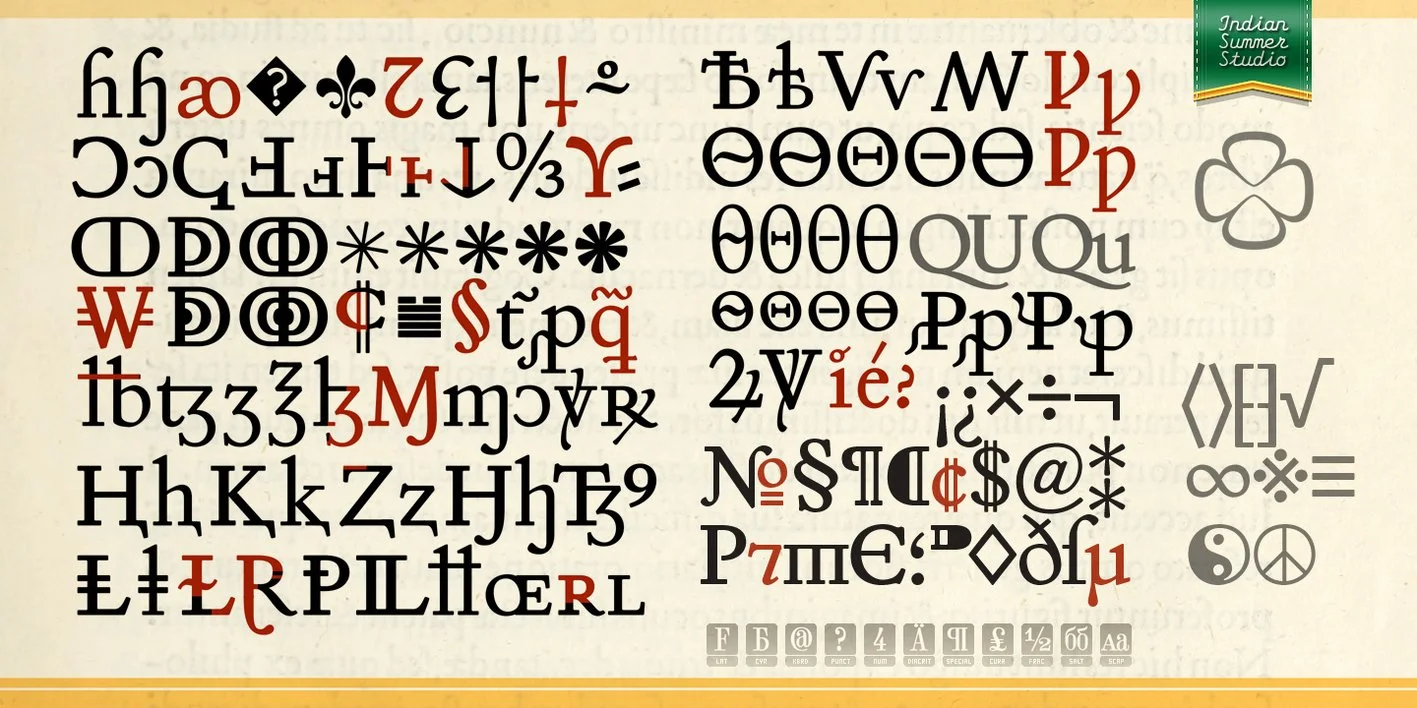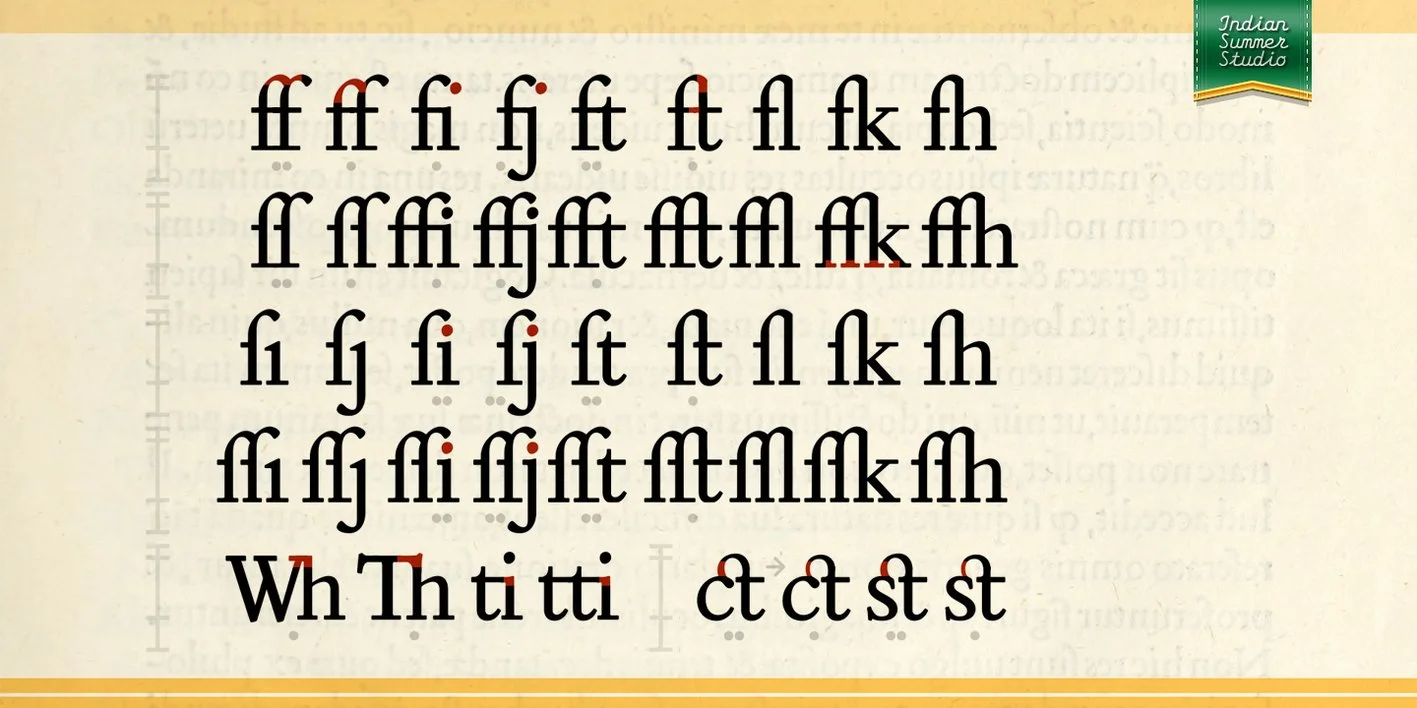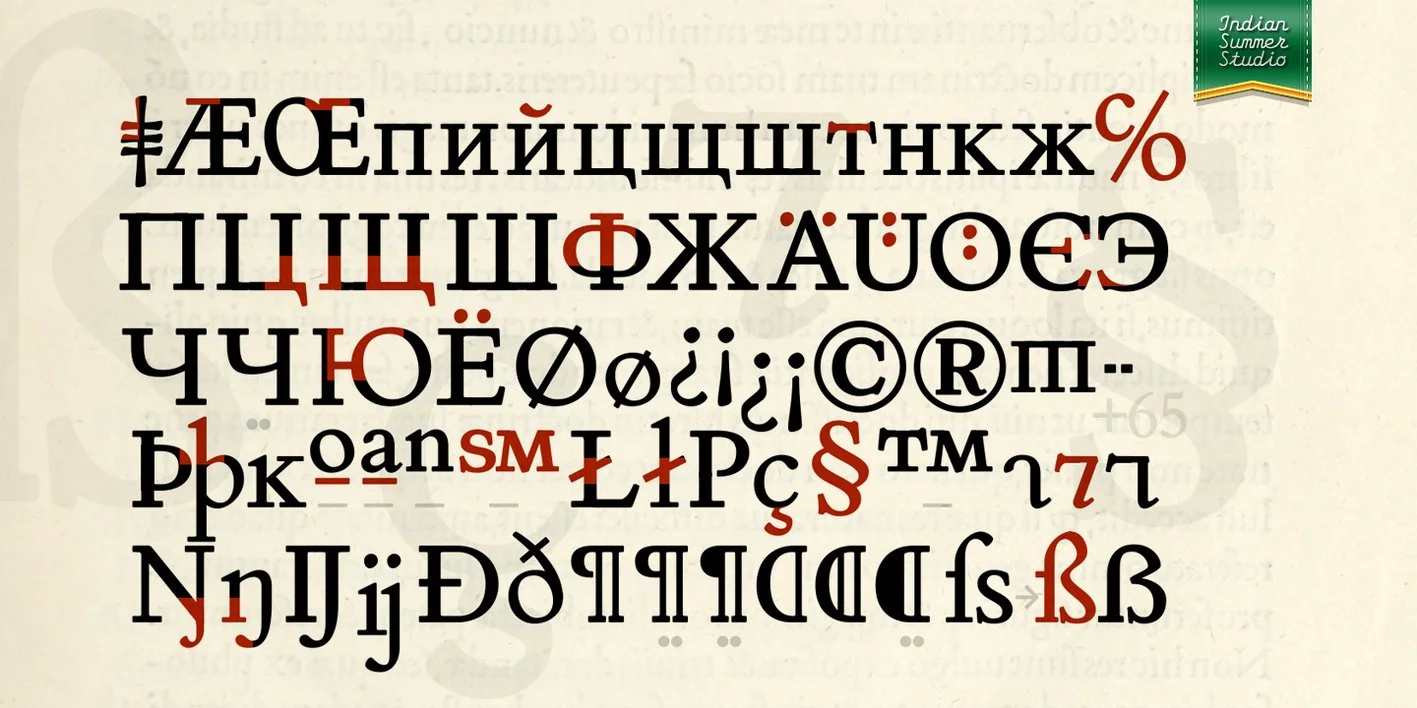
Aldo New Roman Font
There is a particular satisfaction in finding a typeface that delivers optical balance across all weights without compromise. Aldo New Roman consistently provides it. The typeface brings a versatile sensibility to a broad range of creative disciplines, with the kind of restraint that lets content lead that holds up whether the work is print-first or screen-first.
In practice, Aldo New Roman proves particularly effective for signage systems, social media graphics, logo design, editorial layouts, advertising campaigns. Designers reaching for it find that the type decisions feel resolved rather than laboured — a useful quality when client timelines are tight.
Spacing and kerning pairs have been individually reviewed for the most common letter combinations in English and major European languages. The result is even type colour across continuous text, with no awkward gaps or collisions between adjacent characters.
The range of applications extends to product labels, brand identity systems, environmental graphics, poster creation. That breadth is deliberate: the proportions and spacing were stress-tested across a wide range of mock briefs before the typeface was finalised.
Pairing Aldo New Roman with a contrasting serif or a neutral grotesque gives mixed-format layouts a clear visual grammar without requiring constant size adjustments to establish hierarchy.
Independent studios handling packaging and editorial work find Aldo New Roman a reliable choice for projects that demand both personality and restraint. The design avoids the self-conscious quirkiness that dates quickly, settling instead for considered distinctiveness that holds up over time.